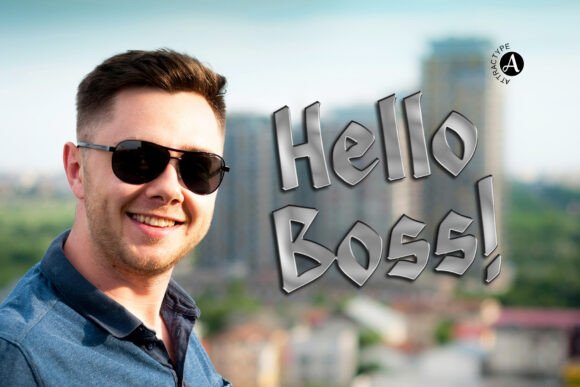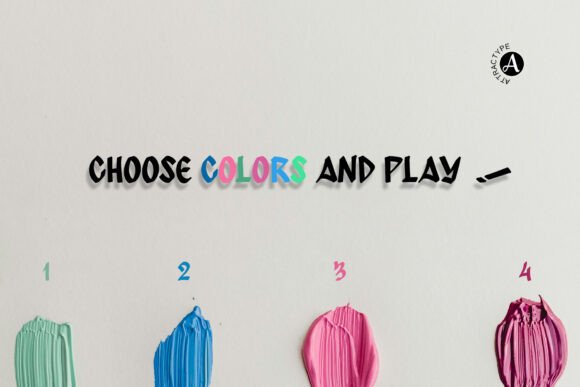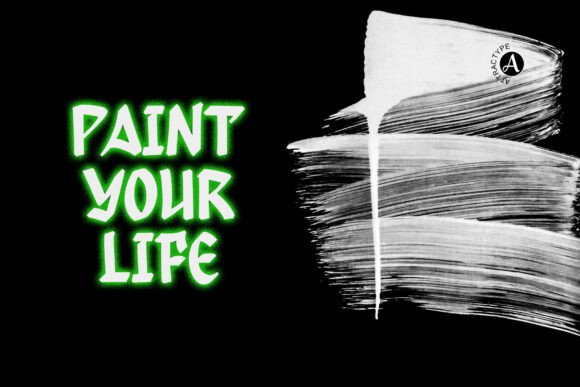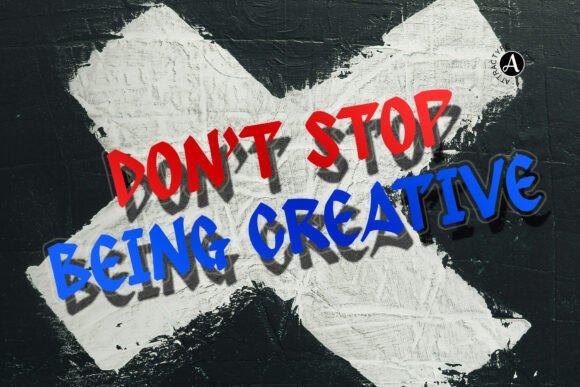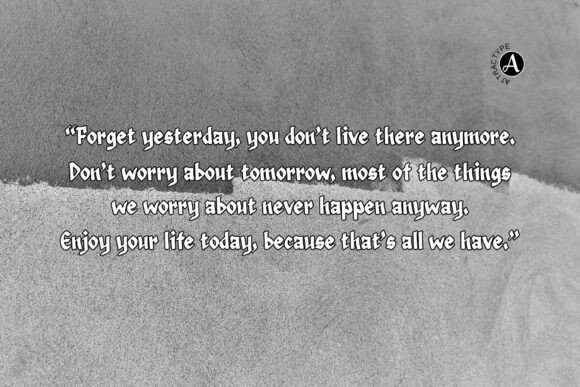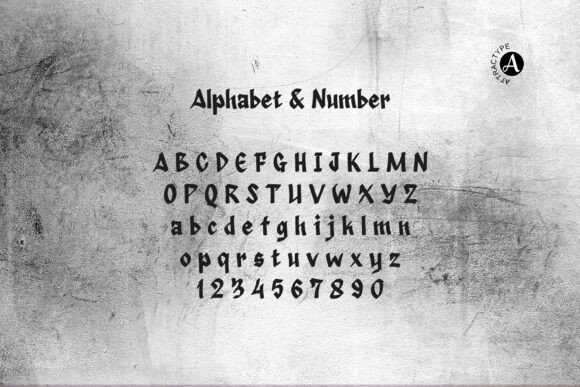
Introduction to Menzo Font Font
Fonts play a crucial role in design, and the Menzo Font font is a typeface that brings both character and versatility to any project. Whether you’re working on a branding project, a website, or a print design, the Menzo Font font offers a unique style that can elevate your work.
Menzo is a bold brush marker font.
Created with a combination of handwriting, this font is perfect for creative design projects that require a handwritten and natural touch Its thick shape makes it easy for you to add graphic effects as desired.
Key Features of Menzo Font Font
Why Choose Menzo Font Font?
The Menzo Font font is more than just a typeface – it’s a design tool that helps you communicate your message with style and clarity. Its unique character set and versatile design make it suitable for a wide range of applications, from elegant invitations to bold headlines.
With its carefully crafted letterforms and balanced proportions, the Menzo Font font ensures readability and visual appeal across all mediums.
What makes Menzo Font font special?
The Menzo Font font stands out with its unique design, exceptional readability, and versatility across various design applications.